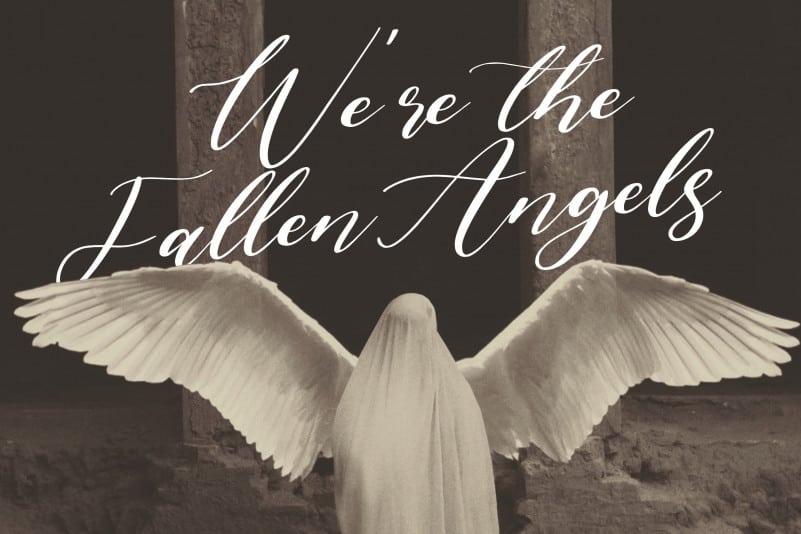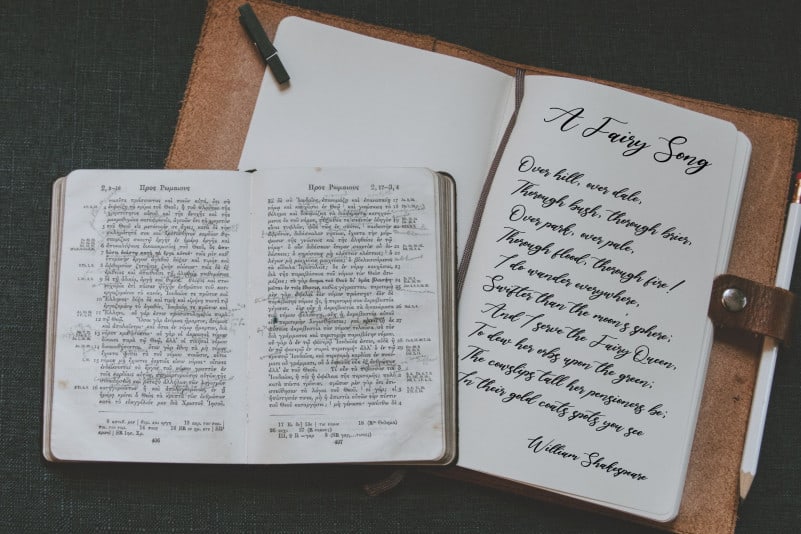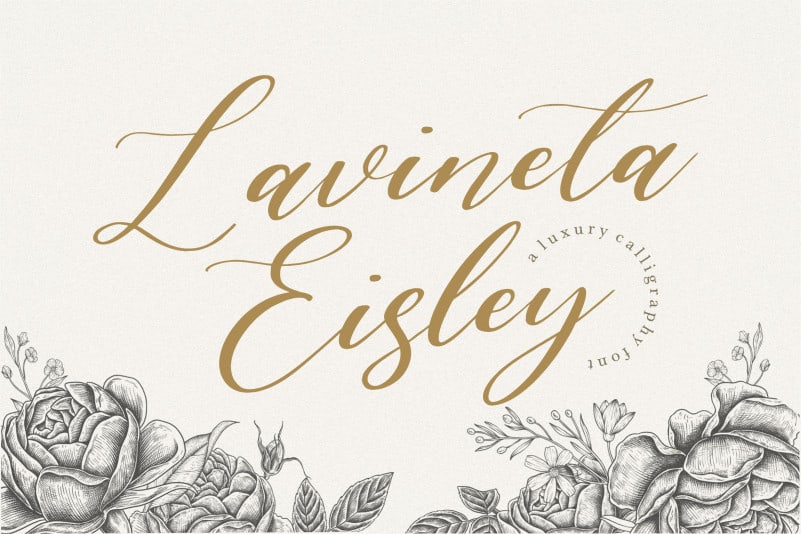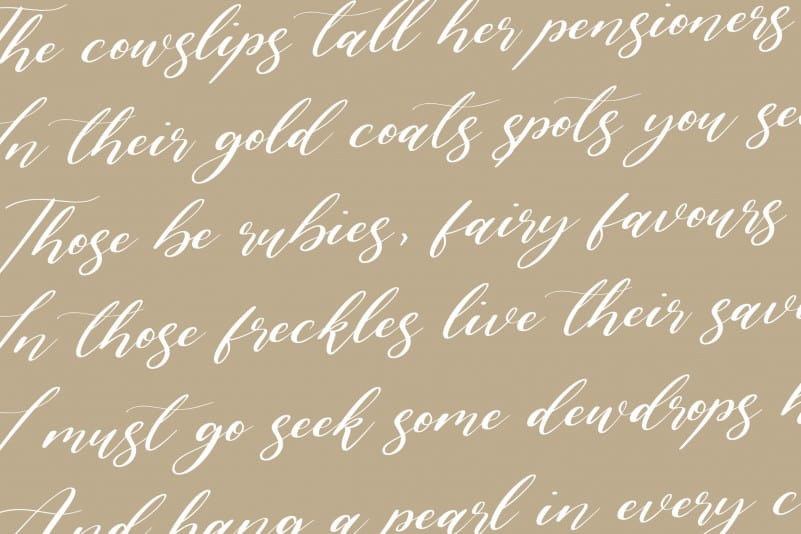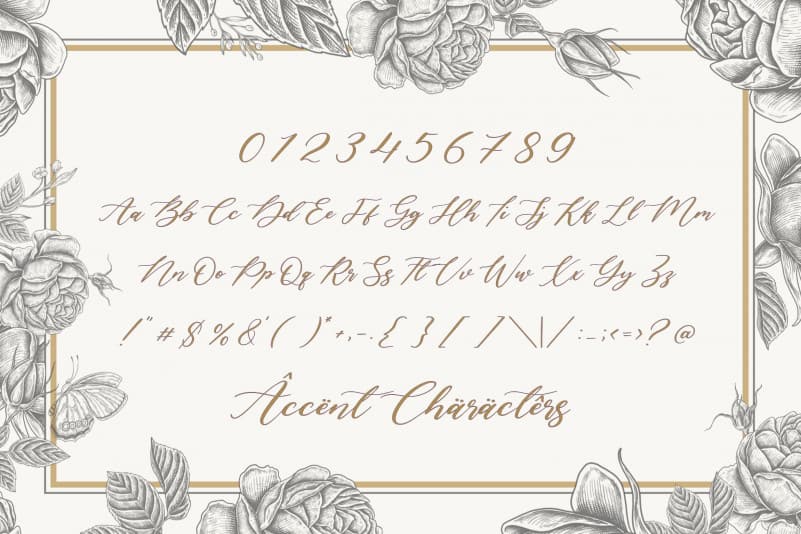
Lavineta Eisley Luxury Calligraphy Font
Proudly Present, Lavineta Eisley Luxury Calligraphy Font.
Lavineta Eisley is a Luxury Calligraphy Font.
It is perfect for product packaging, branding project, megazine, social media, wedding, or just used to express words above the background.